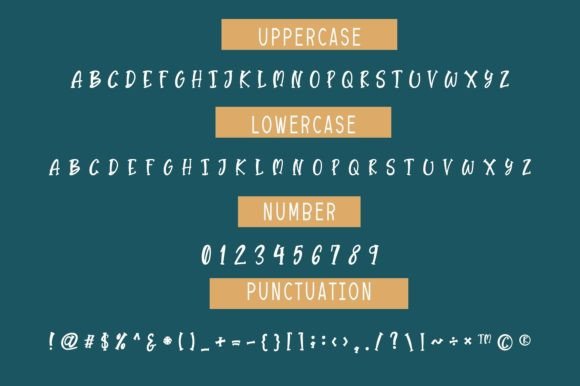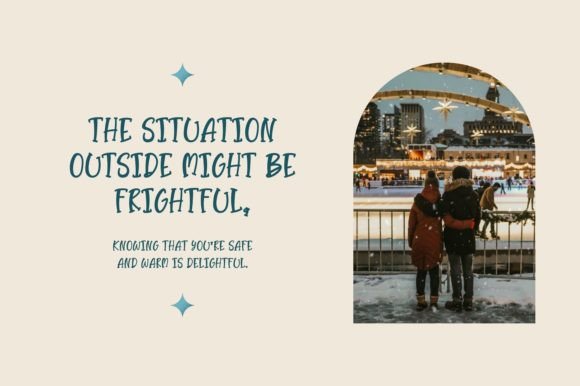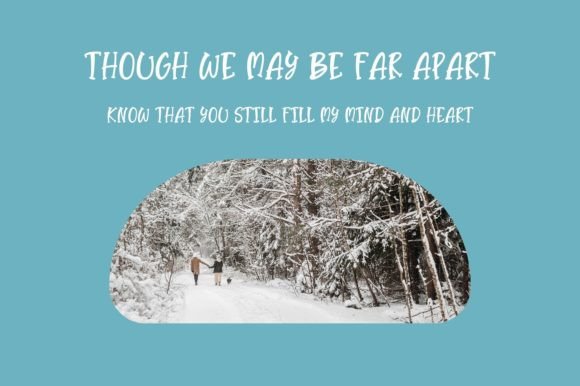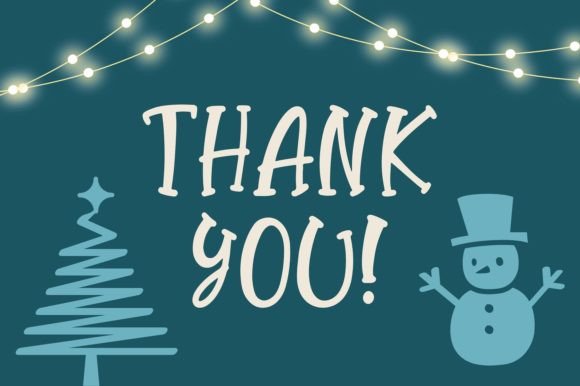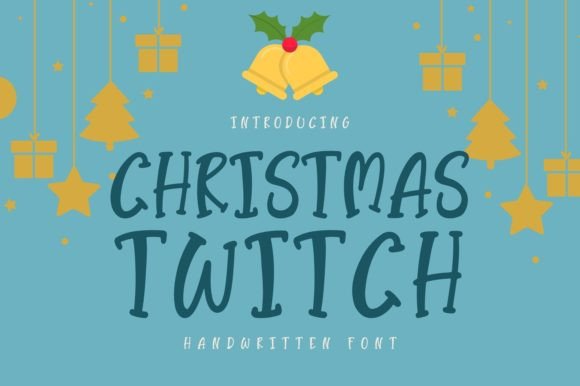
Introducing Christmas Twitch: The Ultimate Handwritten Font for Your Holiday Designs
Are you looking for a font that captures the essence of the holiday season? Do you want to add a touch of playfulness and authenticity to your designs? Look no further than Christmas Twitch, a cute and adorable handwritten font that’s perfect for all your favorite projects. In this article, we’ll explore the features and benefits of Christmas Twitch, and show you how to make the most of this versatile font.
What is Christmas Twitch?
Christmas Twitch is a handwritten font that’s designed to bring a smile to your face. With its playful and whimsical feel, it’s the perfect choice for designers, crafters, and DIY enthusiasts who want to add a personal touch to their projects. Whether you’re creating blog posts, logos, branding materials, ads, invitations, greeting cards, planners, photo albums, or decorations, Christmas Twitch is the ideal font to make your designs stand out.
Key Features of Christmas Twitch
- Playful and Authentic: Christmas Twitch embodies the spirit of the holiday season with its playful and authentic feel.
- Handwritten Style: This font features a beautiful, handwritten style that’s perfect for adding a personal touch to your designs.
- Versatile: Christmas Twitch can be used for a wide range of projects, from digital designs to print materials.
Benefits of Using Christmas Twitch
So, why choose Christmas Twitch for your holiday designs? Here are just a few benefits of using this amazing font:
- Adds a Personal Touch: Christmas Twitch adds a personal touch to your designs, making them more relatable and engaging.
- Creates a Holiday Atmosphere: This font helps to create a festive and holiday atmosphere, perfect for seasonal designs.
- Enhances Brand Identity: Christmas Twitch can be used to enhance your brand identity and create a consistent visual style across your designs.
- Perfect for DIY Projects: This font is ideal for DIY enthusiasts who want to create professional-looking designs without breaking the bank.
Design Ideas Using Christmas Twitch
Here are some design ideas to get you started:
- Holiday Cards: Create personalized holiday cards for friends and family.
- Seasonal Logos: Design seasonal logos for your business or brand.
- Christmas Invitations: Create festive Christmas invitations for parties and events.
- Winter Wonderland Posters: Design stunning winter wonderland posters for social media or print.
- Gift Tags: Create adorable gift tags for presents.